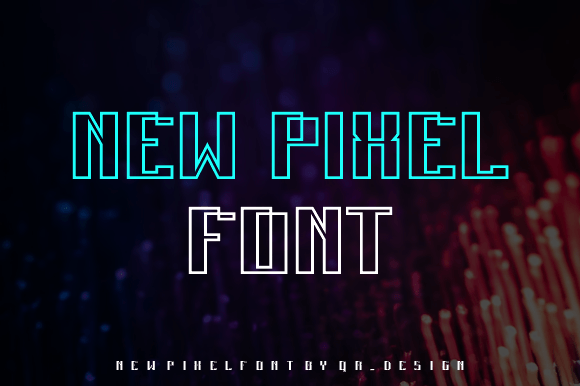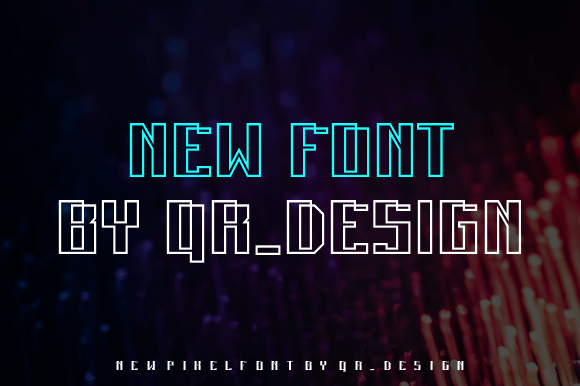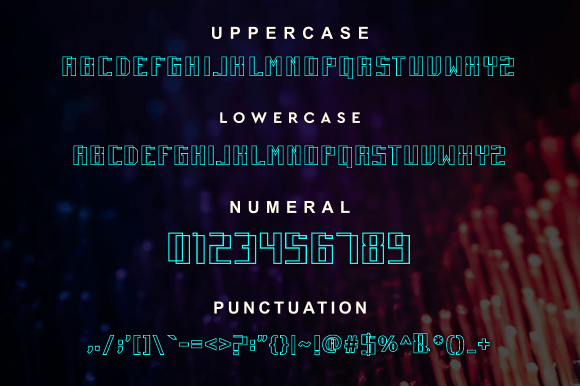
Introduction to Semi Pixel Font
Semi Pixel Line – Modern Font is a bold and authentic display font.
The font is suitable for any branding project like logo, t-shirt printing, e-sport, and many more Outstanding in a wide range of contexts.